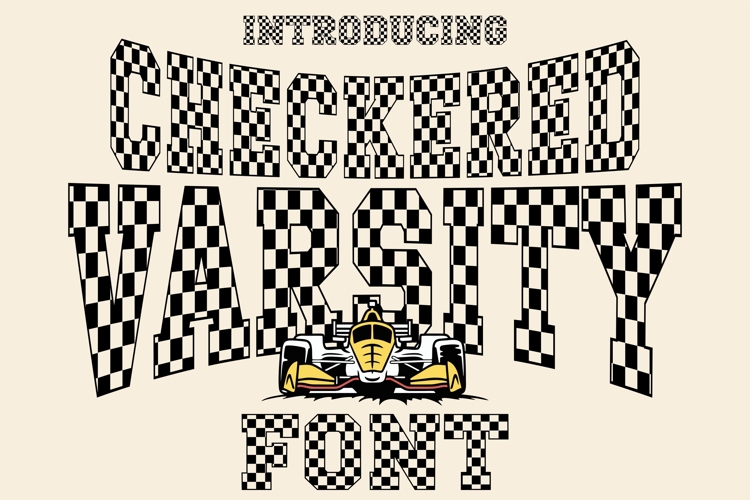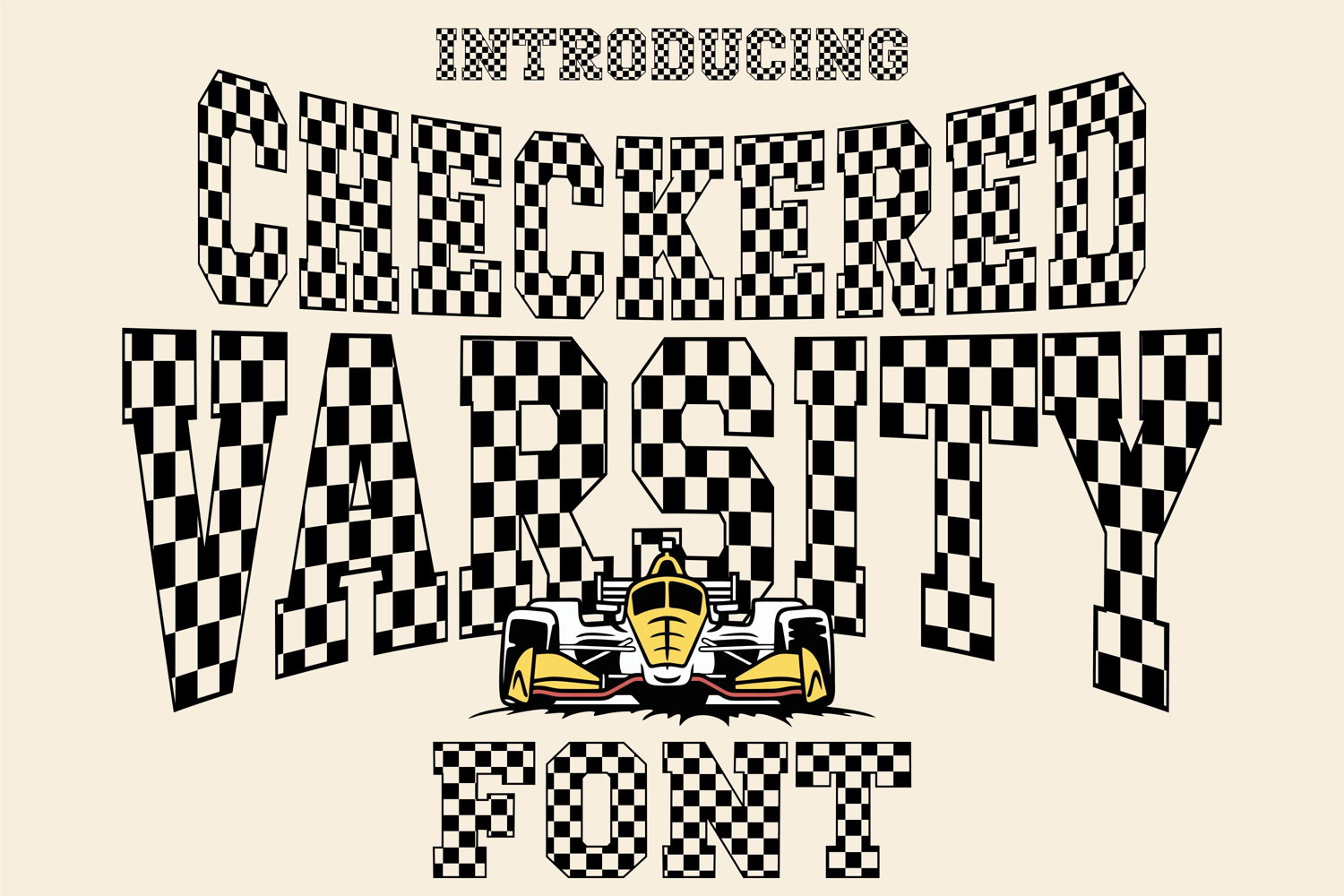
Checkered Varsity Font | Racing Font | Retro Display Font
The Checkered Varsity Font is a bold, high-energy typeface that fuses the excitement of racing with the classic varsity style. With sharp edges, retro block letters, and a striking black-and-white checkered pattern inspired by the racing flag, this font brings adrenaline, power, and motion into every project. Perfect for car lovers, sports fans, and creative racers who love speed and style!
A standout feature? Each letter captures the spirit of victory — blending the tough varsity look with the unmistakable vibe of motorsport design. Whether you’re creating racing team logos, car decals, sports t-shirts, event posters, or Cricut crafts, Checkered Varsity fuels your designs with a winning finish.
With its bold structure and checkered texture, this font is ideal for designers, crafters, and makers who want to add dynamic, full-speed impact to their typography.